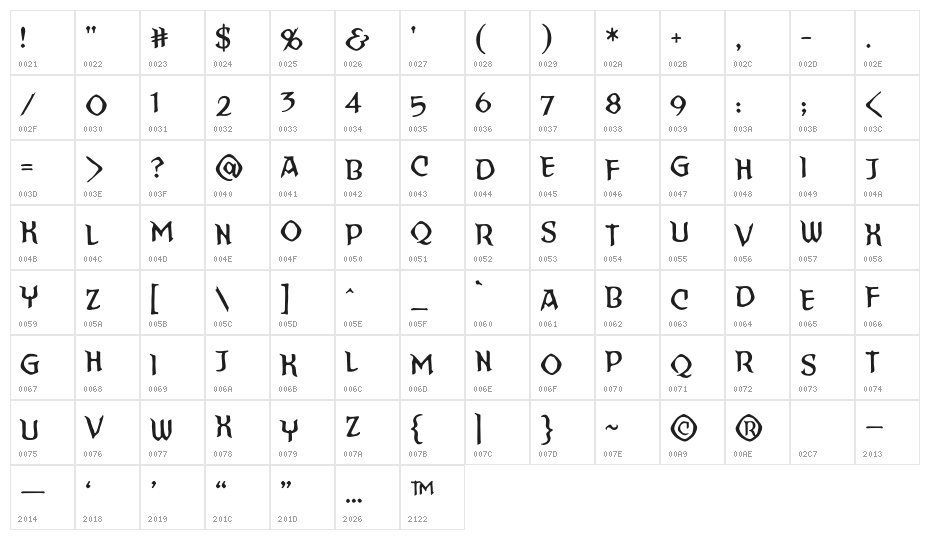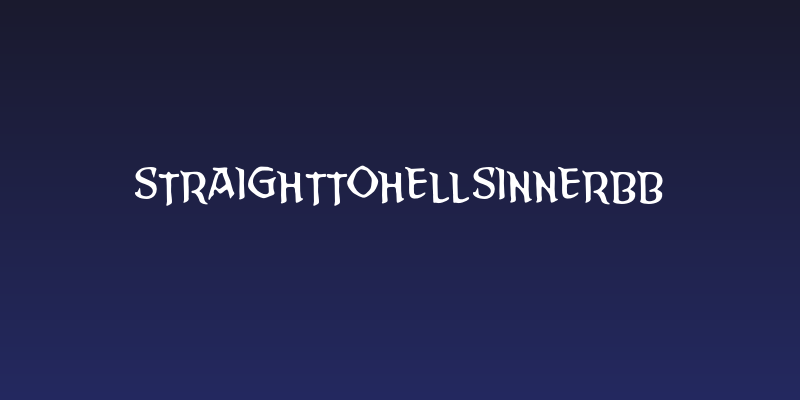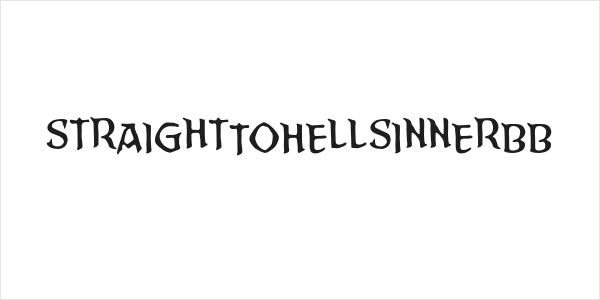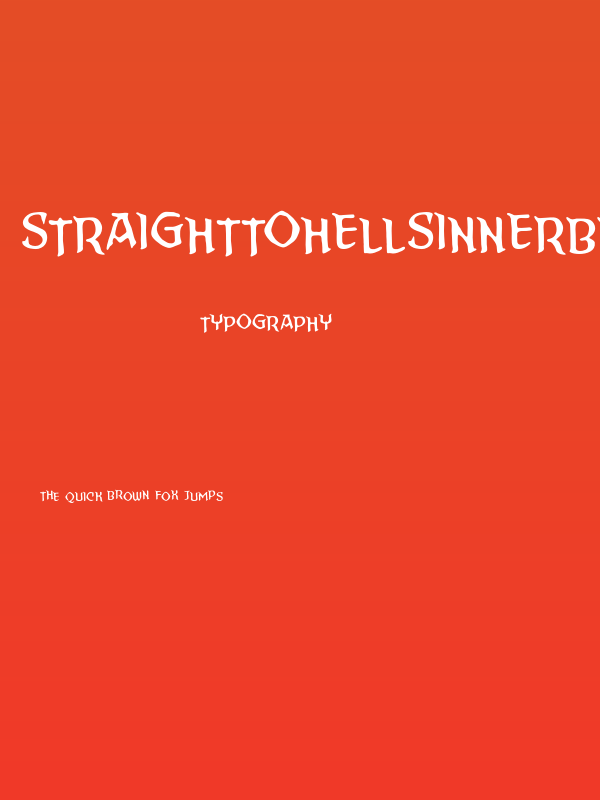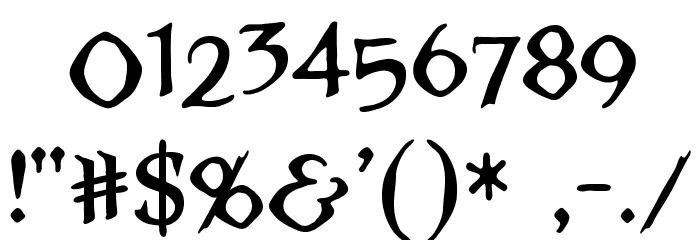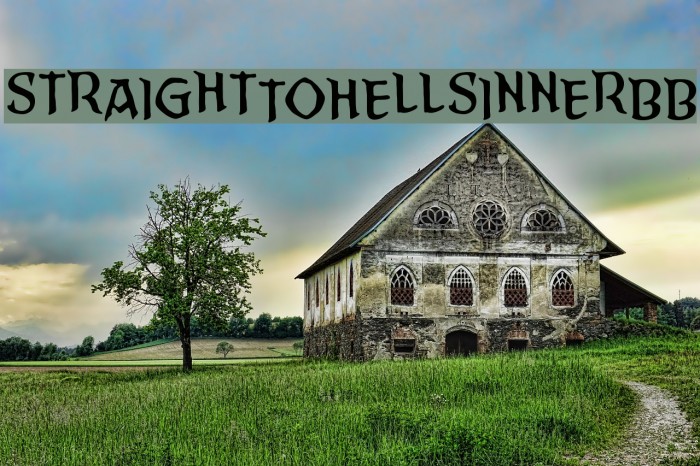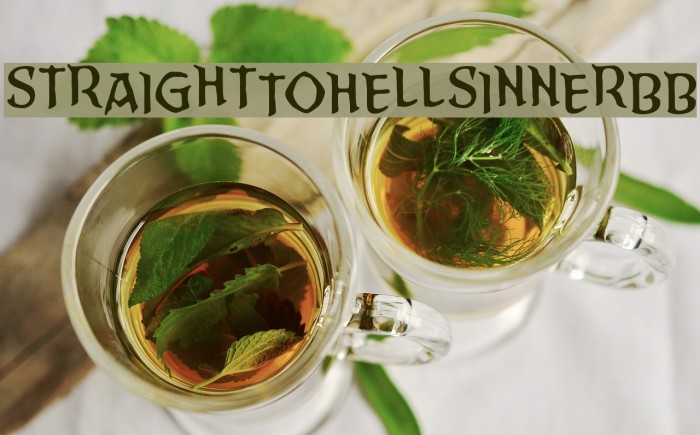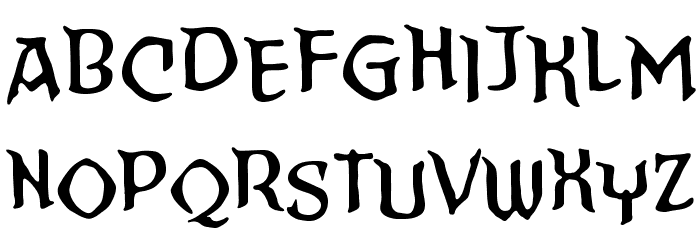
StraightToHellSinnerBB Font
StraightToHellSinnerBB Description
This font features a bold, edgy style with sharp, angular lines and a slightly distressed appearance. The characters have a hand-drawn quality, giving them a unique and rebellious feel. The uppercase letters are particularly striking, with exaggerated serifs and a gothic influence. The lowercase letters maintain the same boldness, ensuring consistency across the typeface. Numbers and special characters are equally stylized, making this font suitable for projects that require a strong visual impact.
| Overall Style | Gothic, Edgy, Hand-drawn |
| Proposed Projects | Ideal for album covers, posters, branding for alternative or rock-themed events, and any design needing a bold, rebellious touch. |